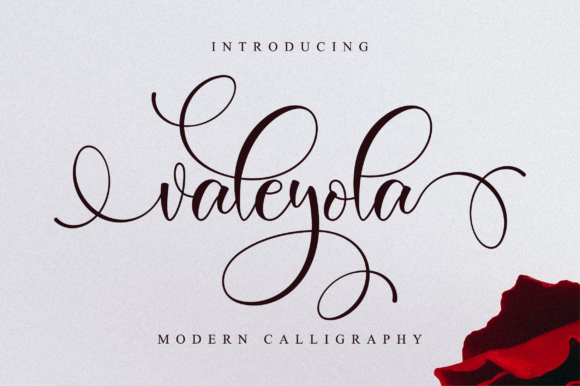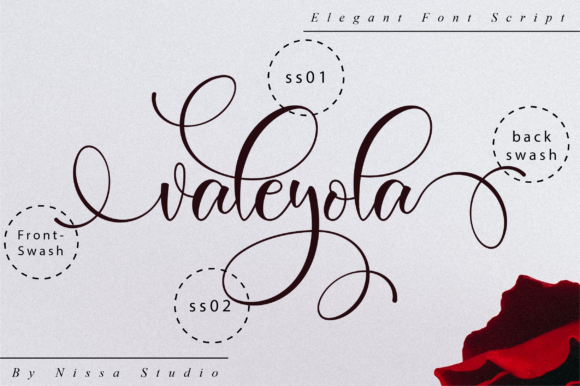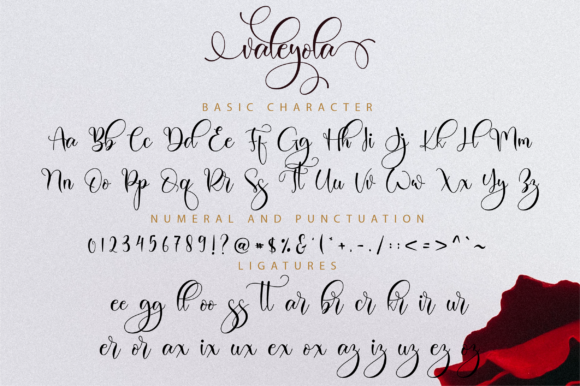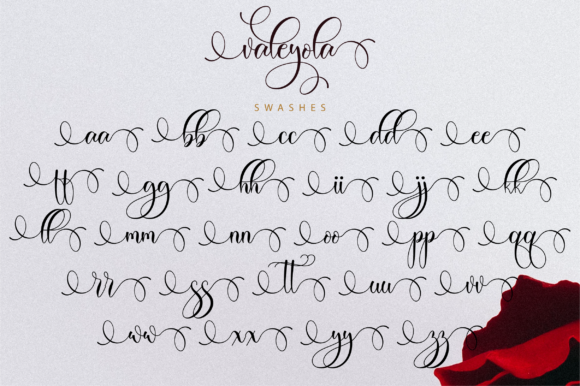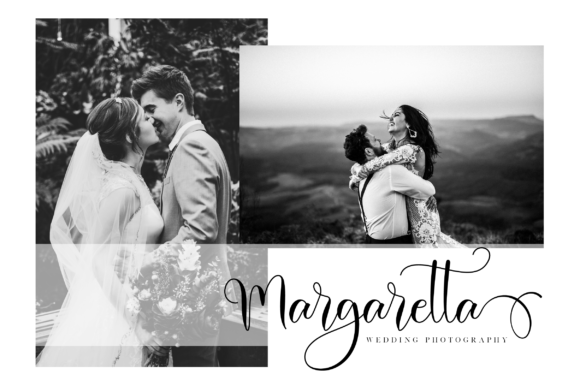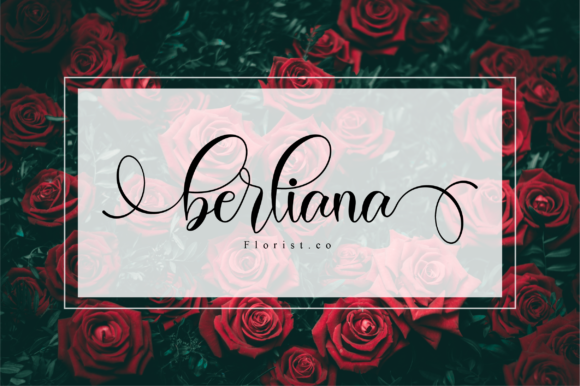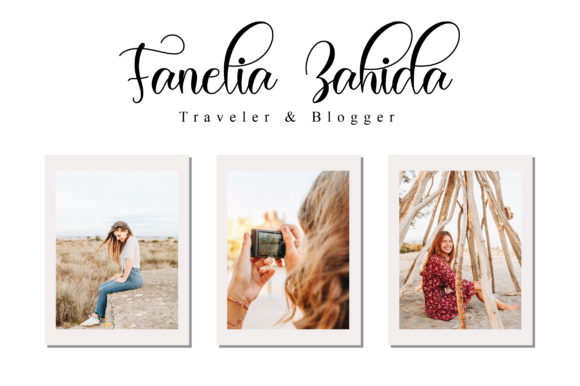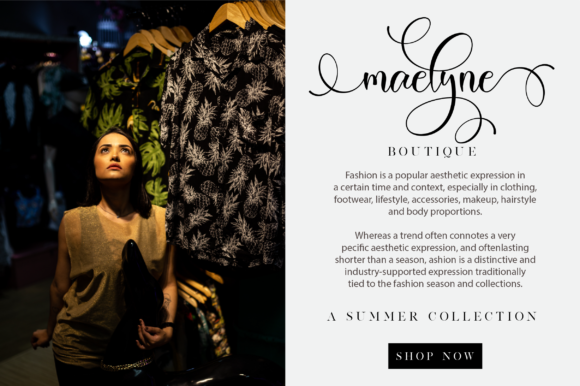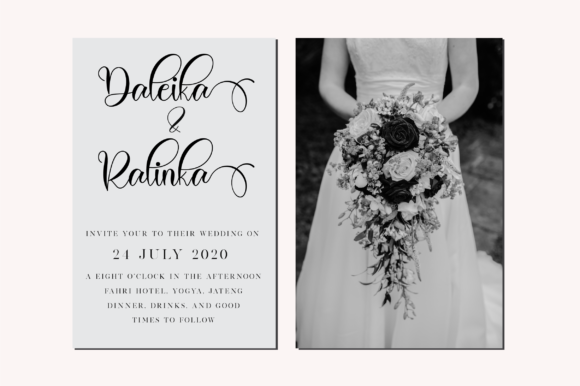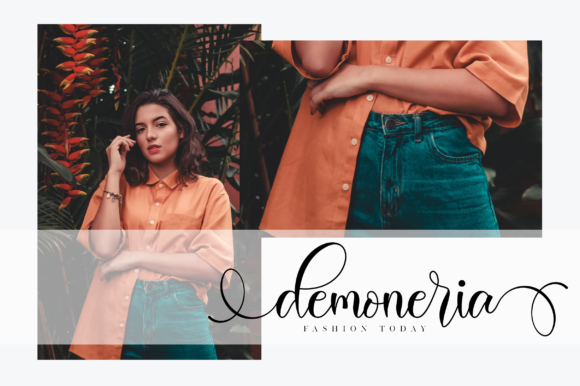
Valeyola Script Font
About Valeyola Script Font
Valeyola is stunning and enchanting, but also incredibly modern. This versatile script font has a wide range of applications ranging from greeting cards to headlines and is guaranteed to add a romantic feel to your next project.
This font is PUA encoded which means you can access all of the beautiful glyphs and swashes with ease! It also features a wealth of special features including alternate glyphs and ligatures. Fall in love with its gorgeous swashes!